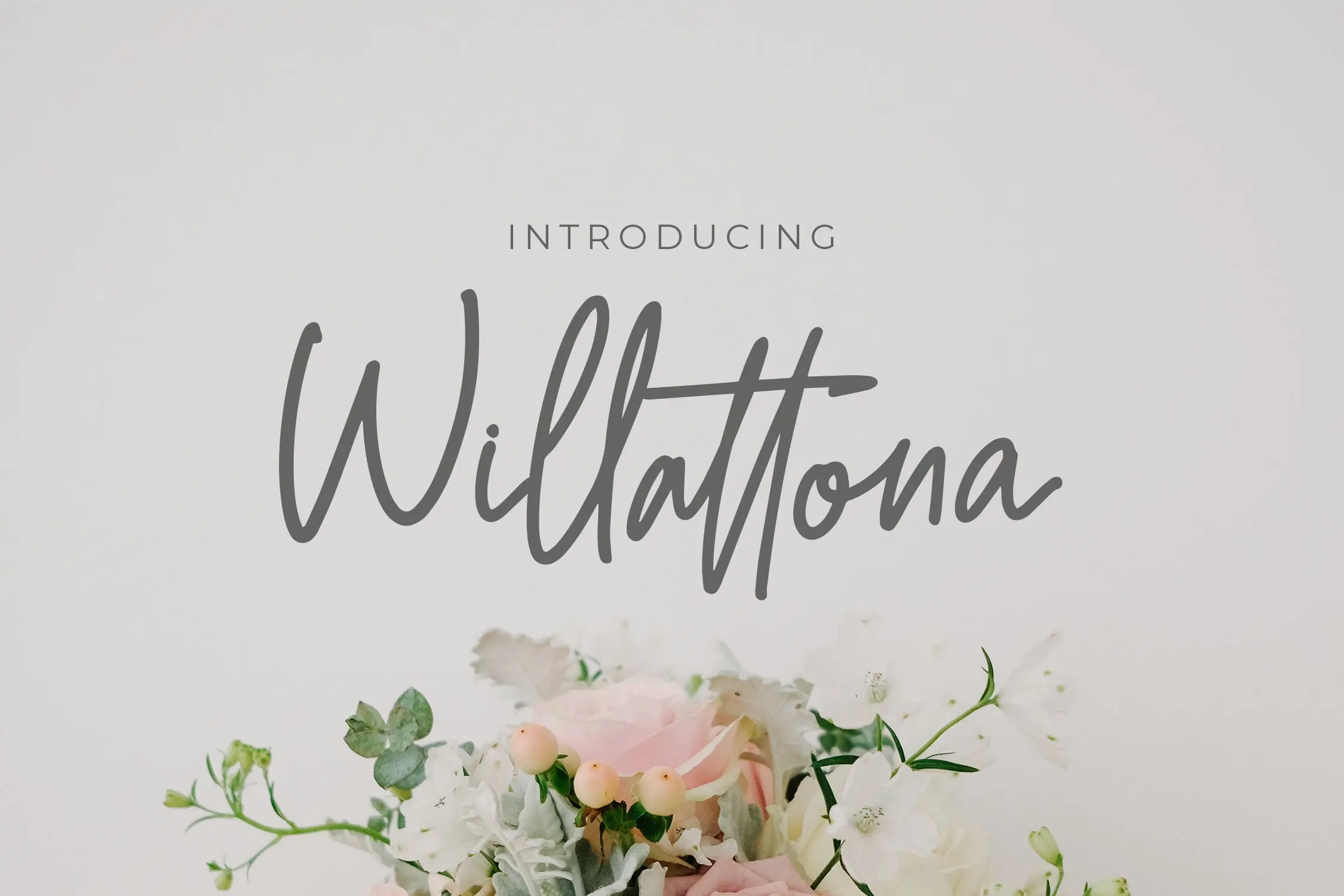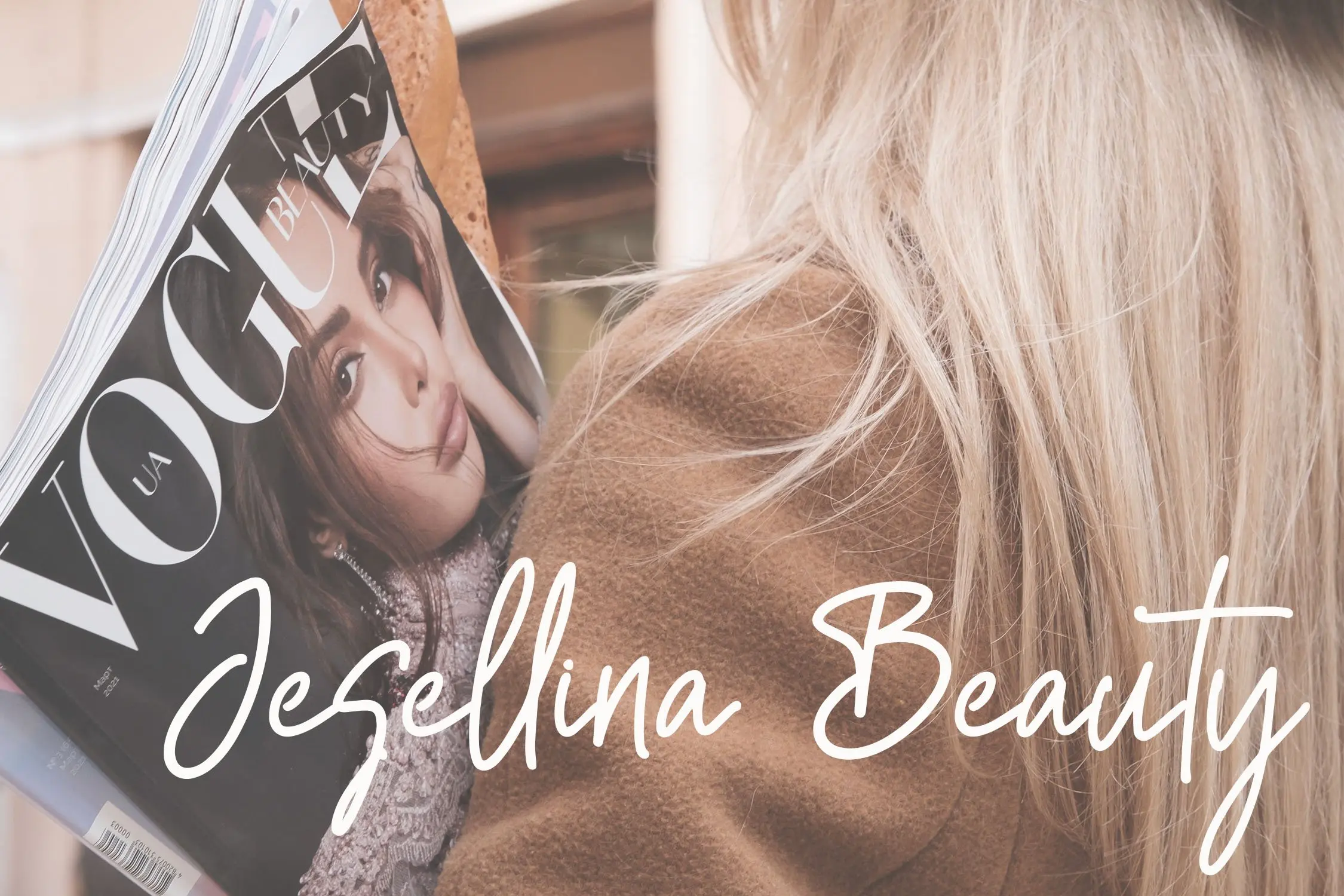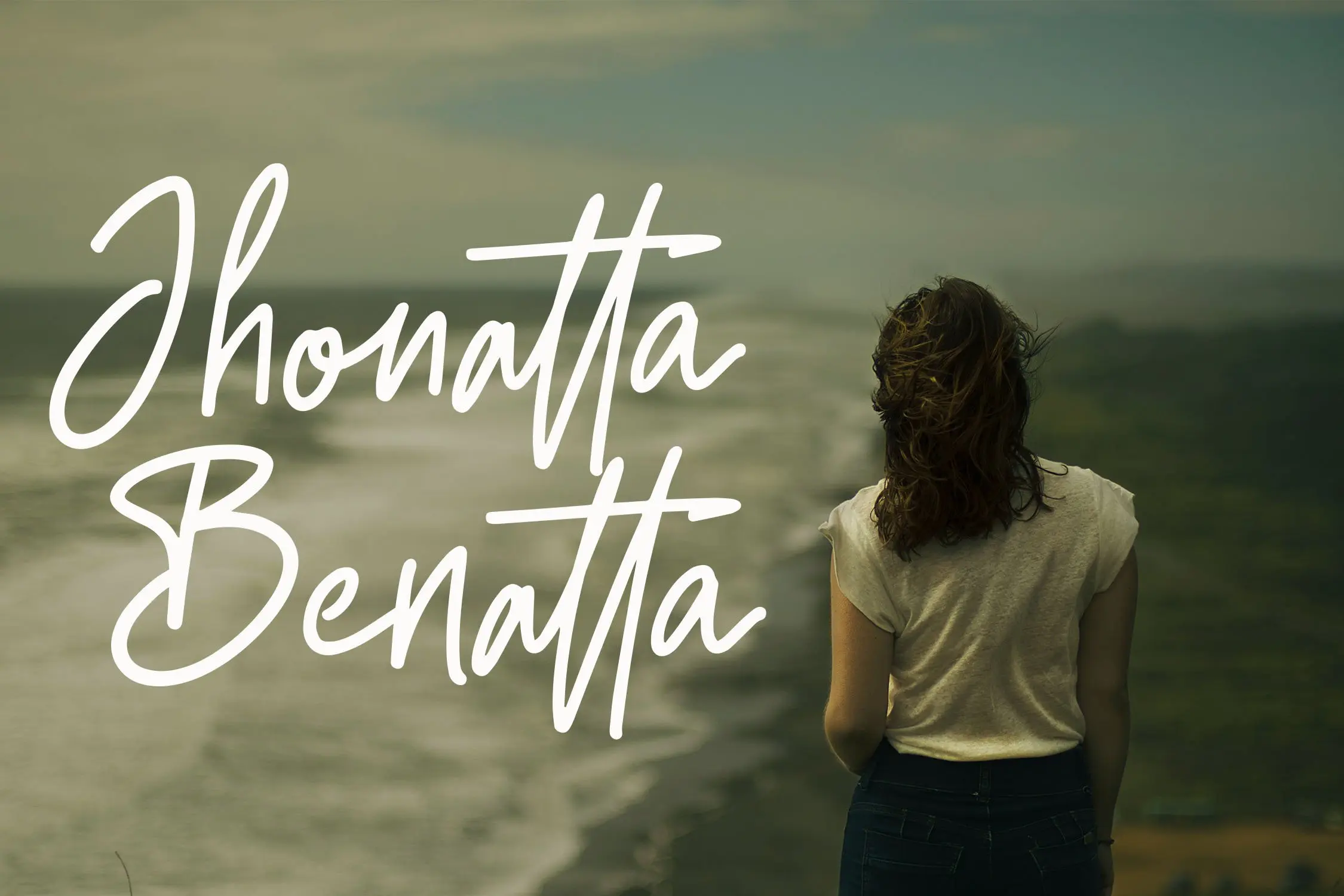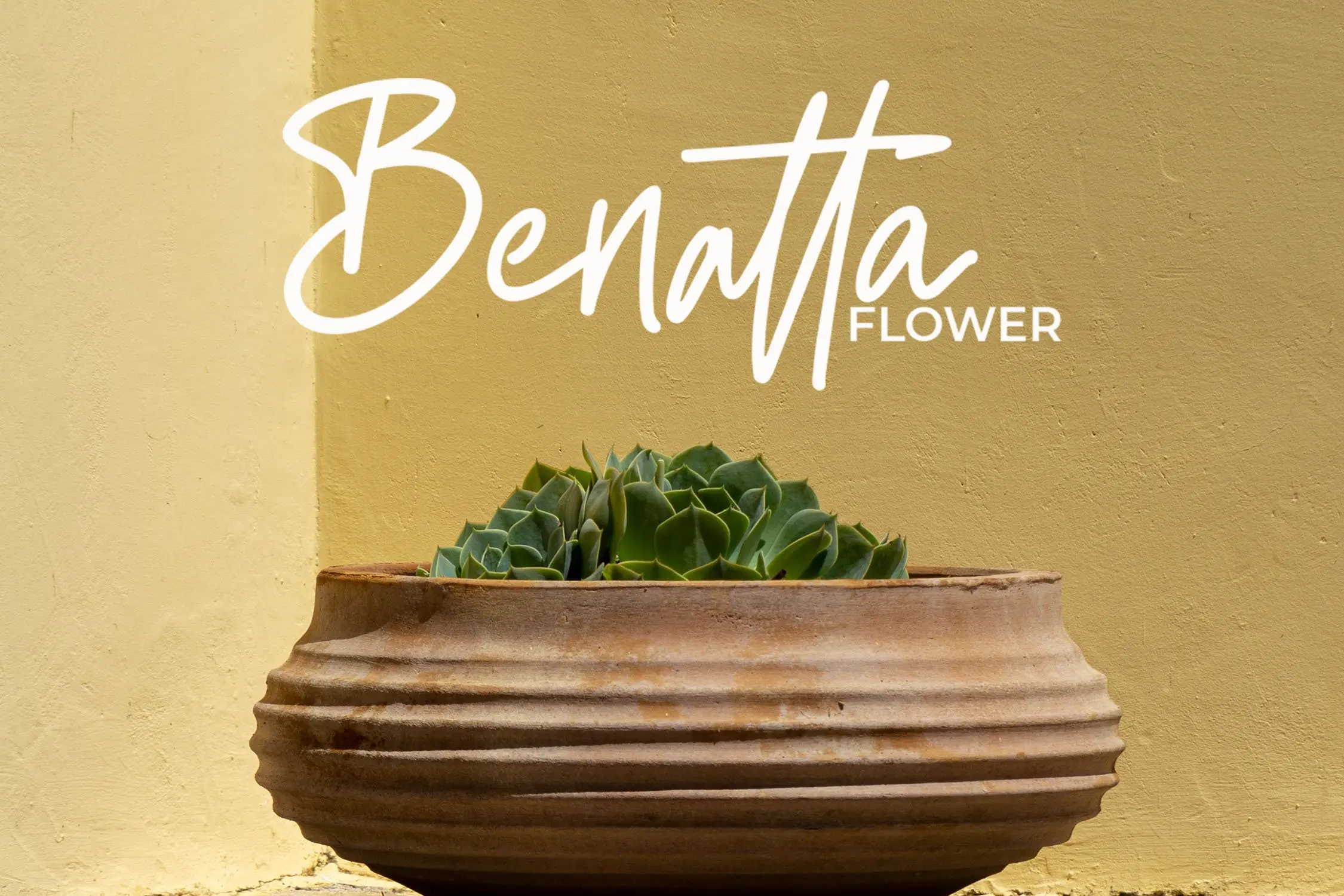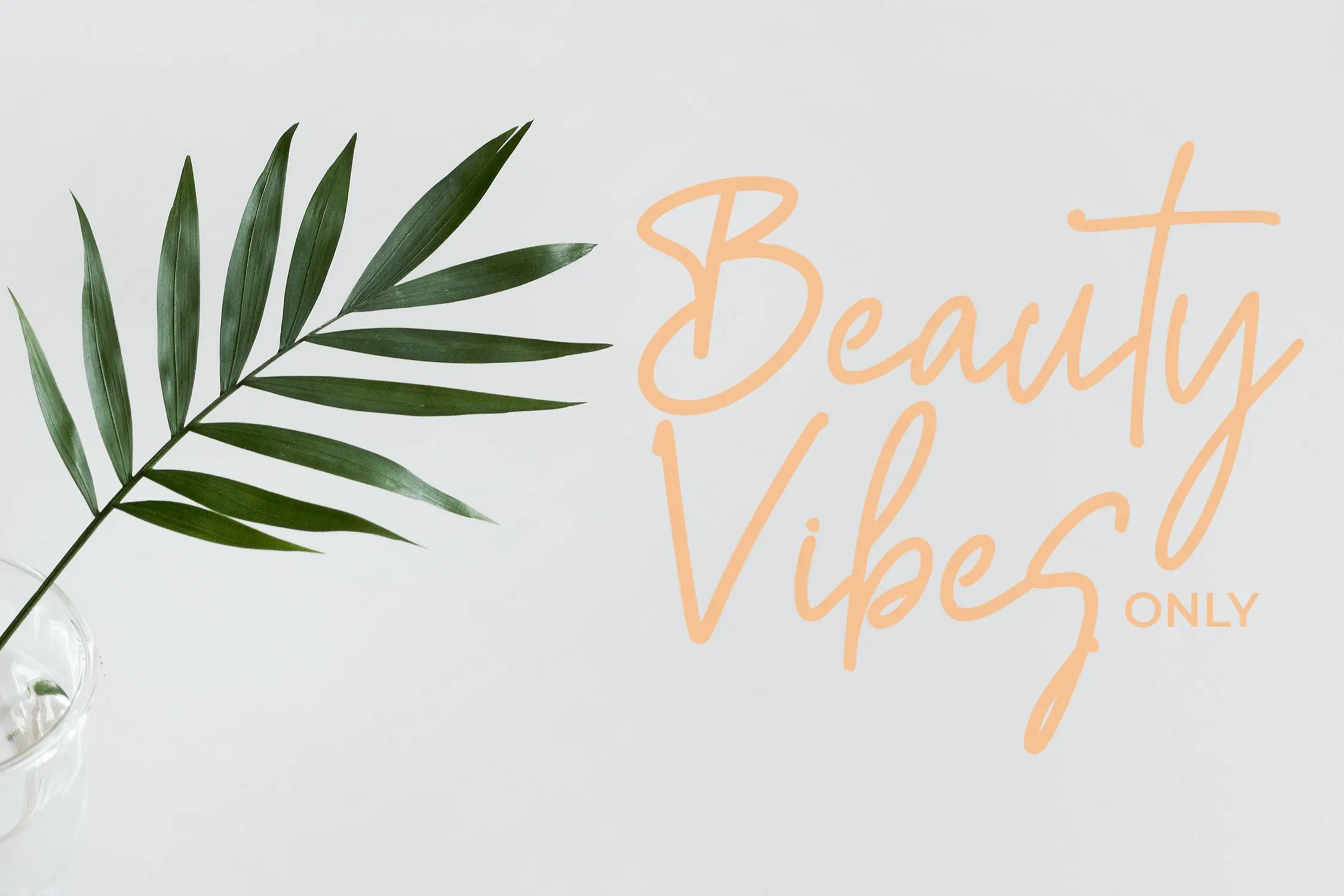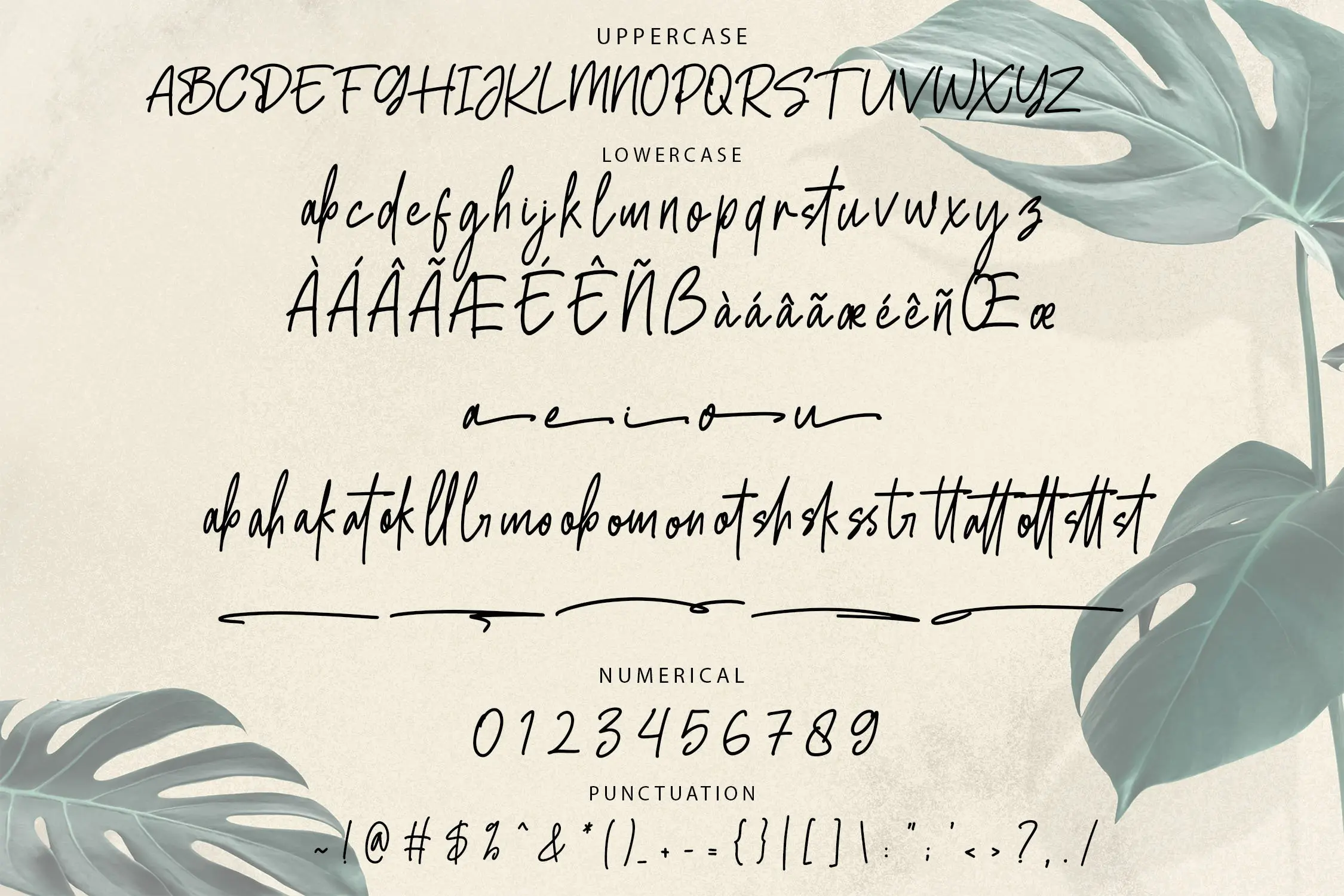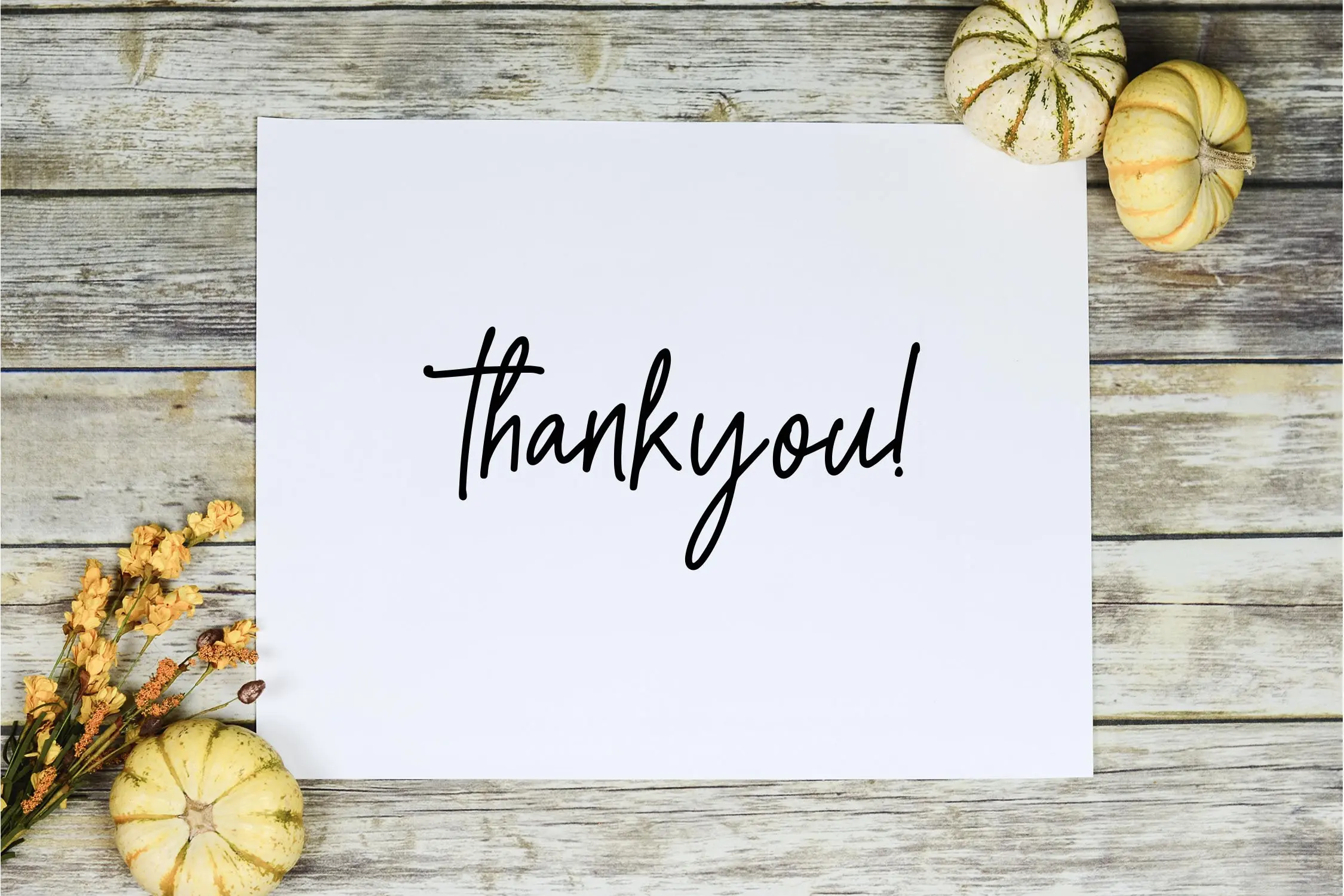
Willattona – Elegant Monoline Script Font
Willattona is a beautifully crafted script font with a smooth monoline style, featuring uniquely shaped characters that add charm and sophistication to any design. Ideal for enhancing the visual appeal of branding, packaging, or other creative projects, Willattona helps your designs stand out with a touch of elegance.
- Includes ligatures, stylistic alternates, and swashes
- Supports multiple languages for versatile use